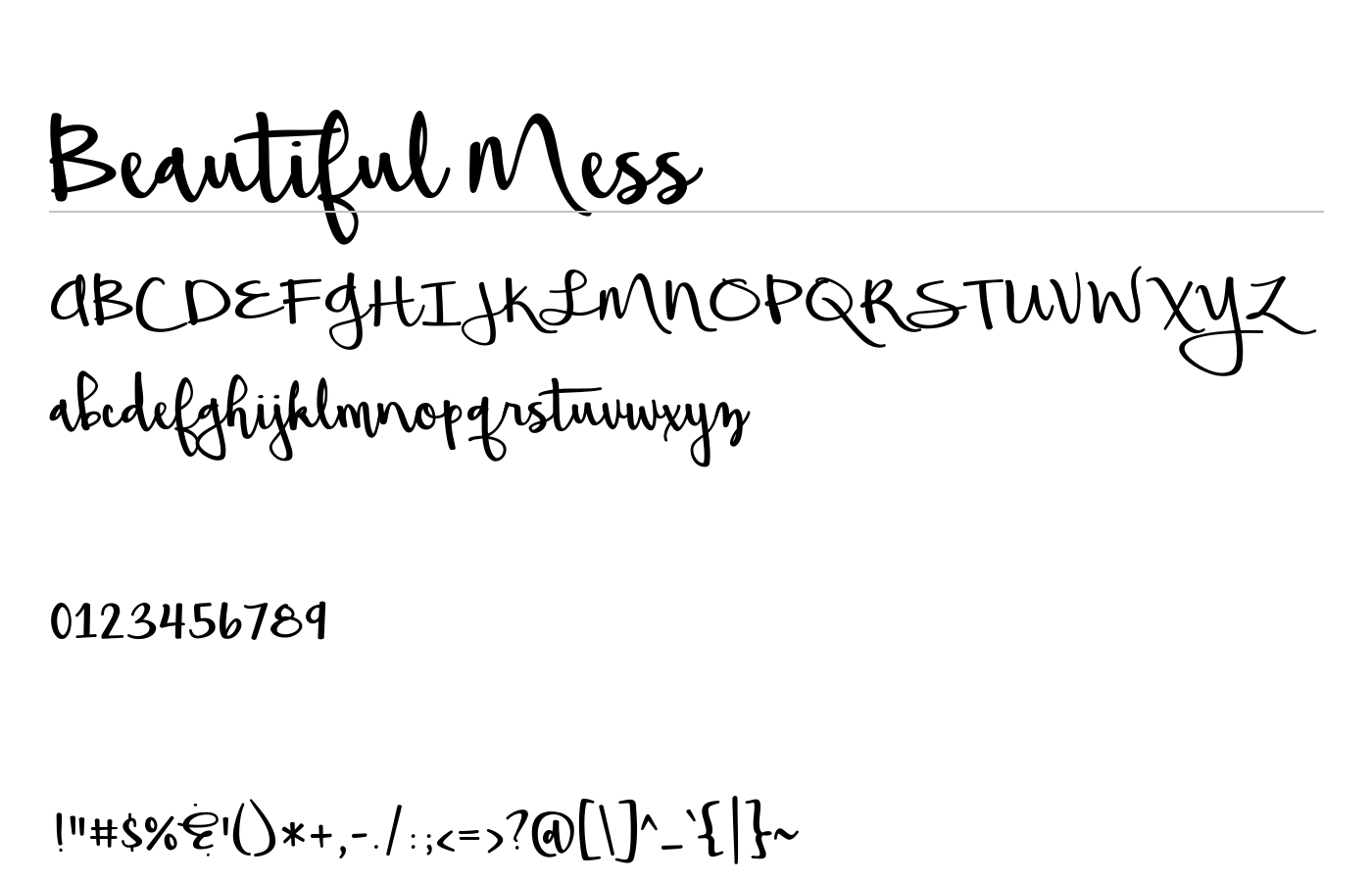
Beautiful Mess is a playful and casual handwritten script font featuring a lively, slightly irregular stroke that gives it a charming, personal touch. With its moderate weight and tall x-height, it offers good readability while maintaining a relaxed and informal style, making it perfect for creative projects, invitations, branding, and any design that seeks a warm, friendly personality.
Beautiful Mess Font
About Beautiful Mess Font